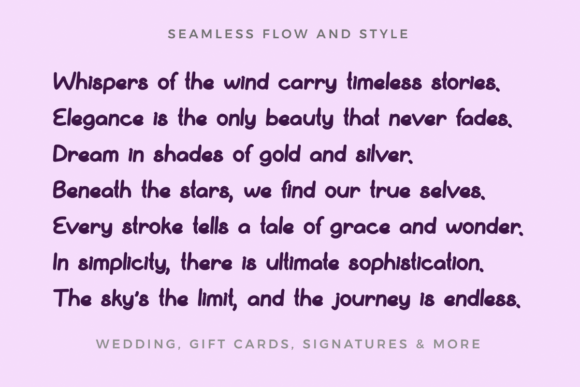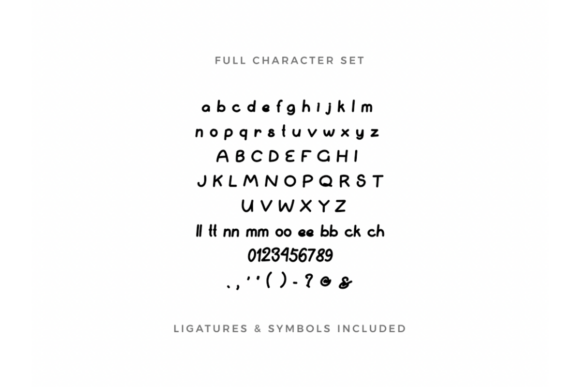
Introduction to Playoff Font
Experience the charm of Playoff, a distinctively crafted script font that captures the beauty and elegance of handlettering.
This typographic gem radiates an irresistible blend of classic refinement and contemporary flair Its handwritten origins make it not only welcoming but also intimately appealing.
Key Features of Playoff Font